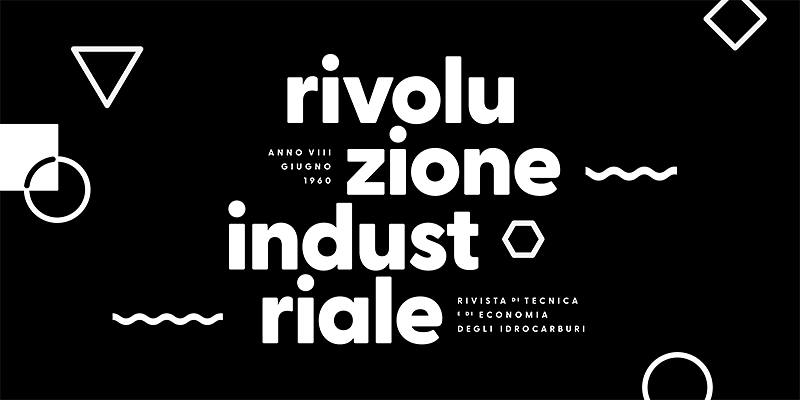
Greycliff CF Font Free Download is a modern and versatile sans-serif typeface designed for professional use. With its clean lines, geometric forms, and balanced proportions, this font is ideal for creating contemporary designs that require clarity, legibility, and a touch of elegance. Perfect for branding, editorial design, websites, and corporate materials.
Greycliff CF Font Free Download combines modern aesthetics with functionality, making it a great choice for both large headings and body text. Its strong presence and straightforward design give it a professional, polished look, making it a solid choice for business communications, digital interfaces, and marketing materials.
Whether you're working on tech projects, branding, or any design requiring clean, readable typography, Greycliff CF delivers a sleek and modern solution.